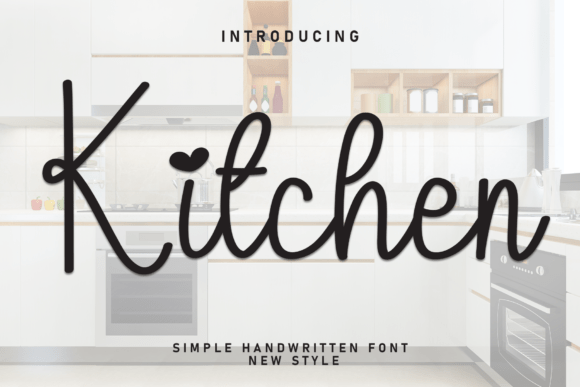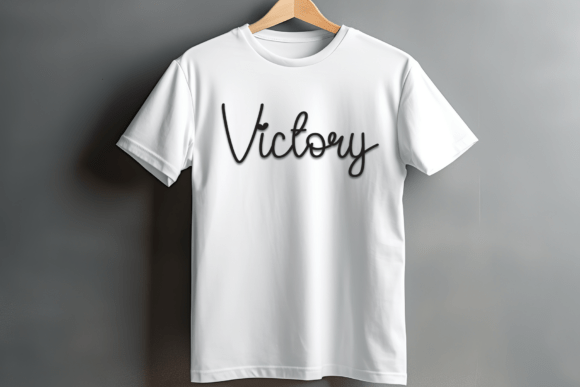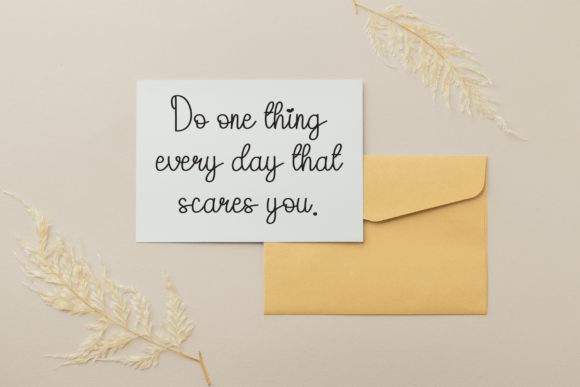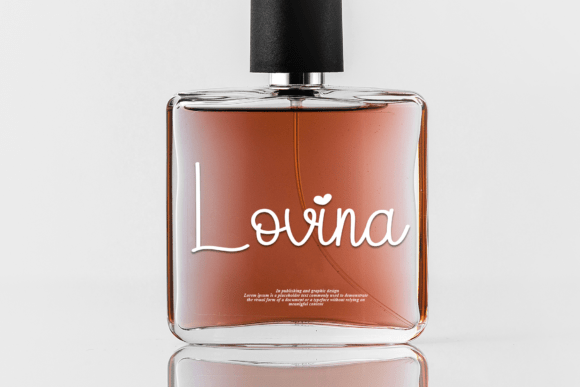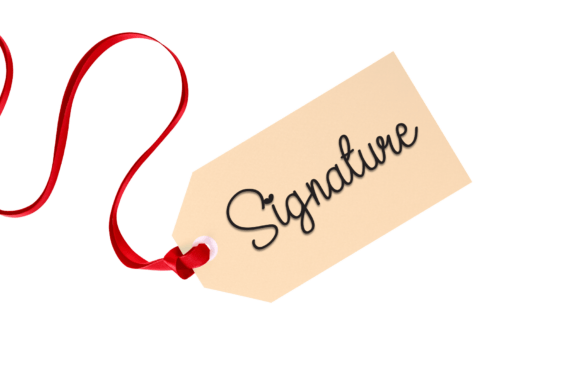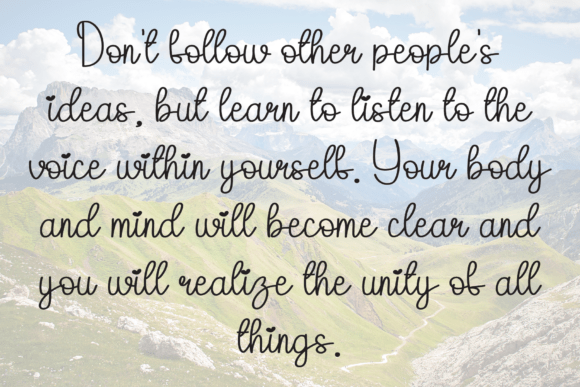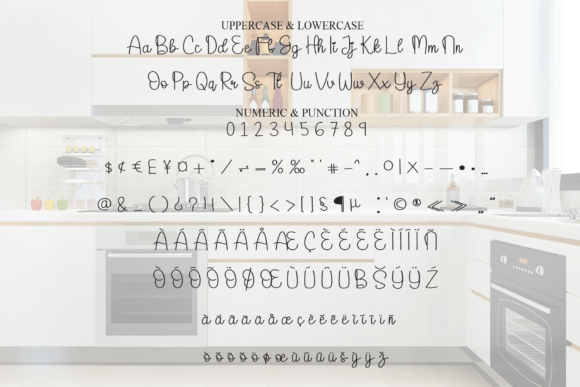
The Perfect Recipe for Design Success: Introducing Kitchen Font
Have you ever stared at a blank canvas, trying to come up with the perfect idea, only to be met with a creative block? You’re not alone. Sometimes, all it takes is a dash of inspiration to spark that creative flame. For designers, finding the right font can be the missing ingredient in a project. Enter Kitchen Font, a stylish handwritten script font that’s sure to elevate any design.
Kitchen Font is more than just a pretty face – it’s a way to add a personal touch to your designs. With its flowing curves and natural rhythm, it’s perfect for invitations, branding, and social media. Whether you’re a seasoned pro or a design newbie, Kitchen Font is a valuable addition to your toolkit.
Kitchen Font Key Features
- Font Family: A unique set of fonts designed specifically for kitchen-related applications, including ‘Kitchen’, ‘Kitchen Italic’, ‘Kitchen Bold’, and ‘Kitchen Bold Italic’.
- Unique Characteristics: The fonts in the ‘Kitchen Font’ family feature a clean, modern design with a focus on readability and ease of use, making them ideal for kitchen signage, labels, and other applications.
Kitchen Font Review
I recently had the chance to work with the Kitchen Font, and I must say it’s a mixed bag. Here’s my honest review.
The Kitchen Font has a charming, playful feel to it. It’s perfect for a rustic or vintage-themed kitchen or a bakery. The font’s irregularities and imperfections give it a unique, handmade look that’s hard to replicate with other fonts.
- It’s great for creating a cozy atmosphere.
- The font is highly legible, even at small sizes.
- It’s available in a wide range of weights and styles.
The Kitchen Font has some limitations that might make it less suitable for certain projects.
- The font can be quite busy, which might make it difficult to read in large blocks of text.
- It’s not ideal for use in formal or professional contexts.
- The font’s irregularities can sometimes make it difficult to pair with other fonts.
Overall, the Kitchen Font is a great choice for projects that require a playful, rustic feel. However, it’s not the best option for formal or professional projects. With some careful consideration and planning, it can be a great addition to your design toolkit.
Tips for Getting the Most Out of Kitchen Font
Use Kitchen Font for recipes, food blogs, and cooking-related content to create a cohesive and inviting brand.
Pair Kitchen Font with a clean and modern design to create a visually appealing layout.
Experiment with different font sizes and styles to add emphasis and create hierarchy in your design.
Recipe cards and food blogs.
Cooking-related social media posts and advertisements.
Food packaging and branding materials.
Alternatives to “Kitchen Font” for Designers
Pacifico is a beautiful, elegant script font perfect for creating a sophisticated and luxurious feel in your designs. It’s ideal for use in branding, packaging, and advertising materials where a high-end look is desired.
Compared to Kitchen Font, Pacifico has a more refined and polished appearance, making it a better choice for formal or premium brands.
Great Vibes is a modern, handwritten font that’s great for adding a touch of personality and whimsy to your designs. It’s perfect for use in social media graphics, blog posts, and other online content where a casual, friendly tone is desired.
Compared to Kitchen Font, Great Vibes has a more relaxed and informal feel, making it a better choice for brands that want to appear approachable and relatable.
Alex Brush is a elegant, cursive font that’s perfect for creating a sense of warmth and sophistication in your designs. It’s ideal for use in branding, packaging, and advertising materials where a high-end, luxurious feel is desired.
Q: What is the recommended line height for body text in Kitchen Font?
The recommended line height for body text in Kitchen Font is 1.2-1.5 times the font size. This line height range ensures optimal readability and helps maintain a clean visual hierarchy in your design.